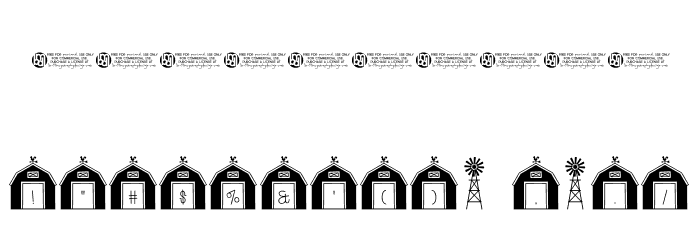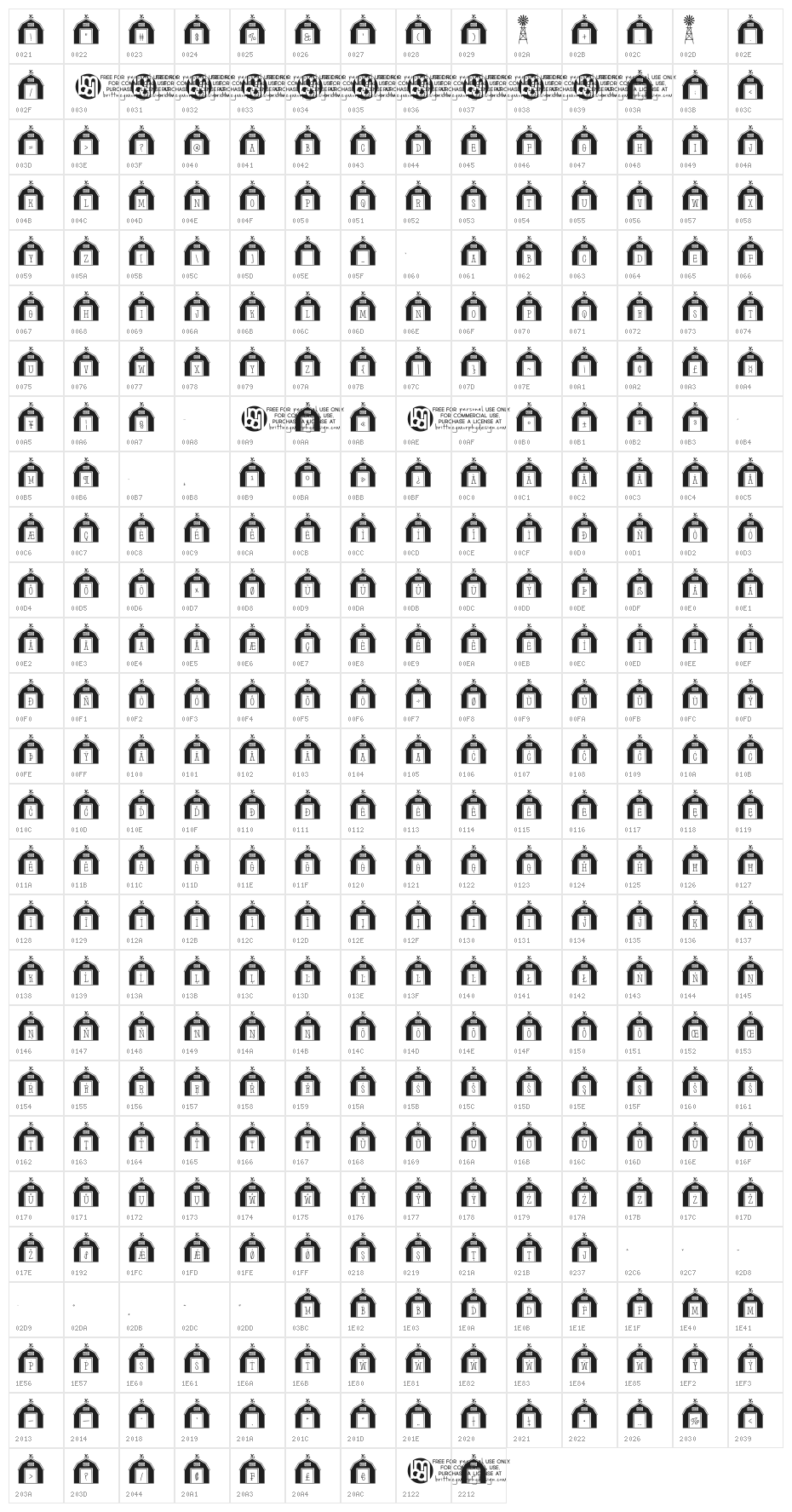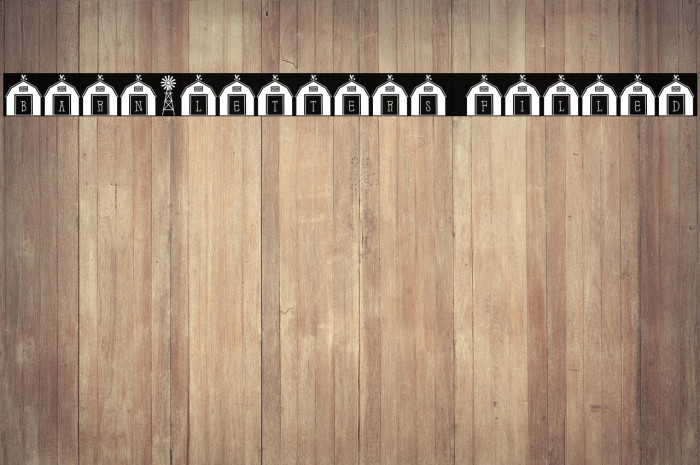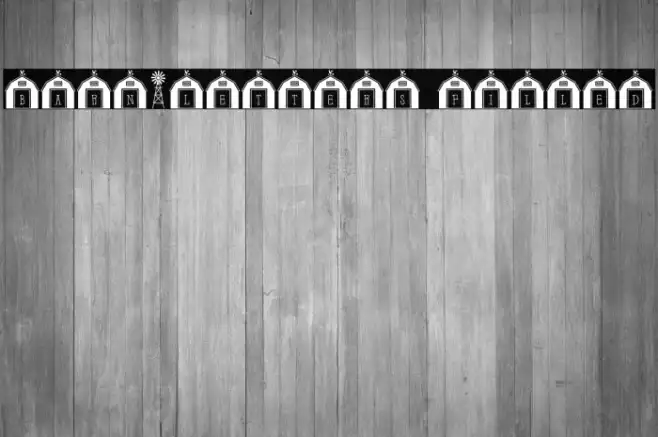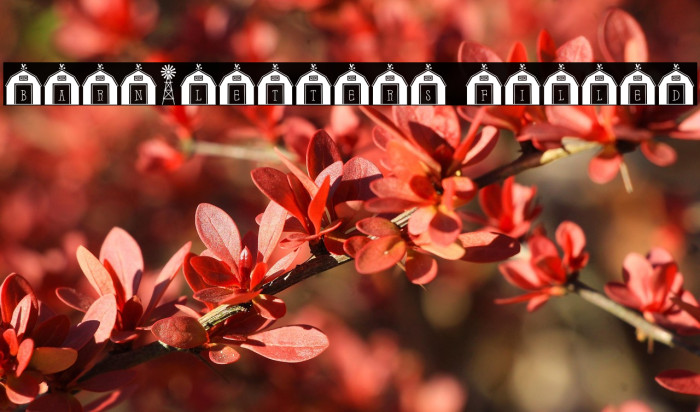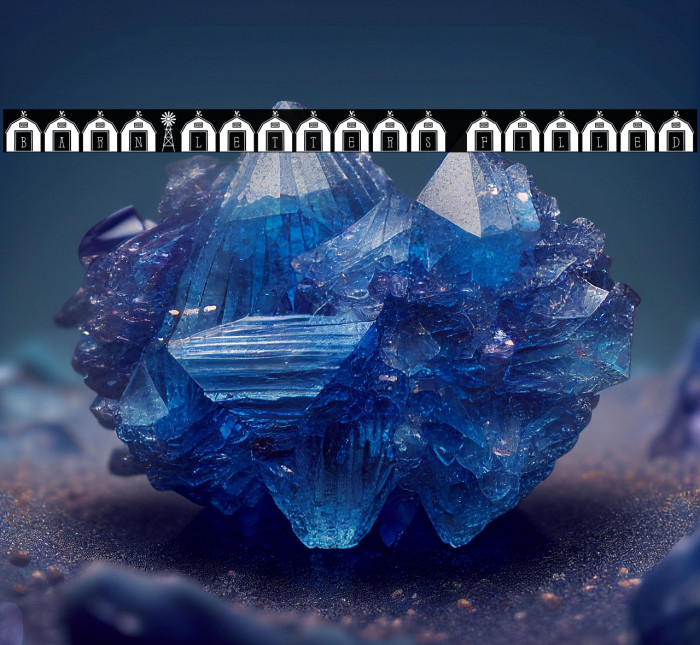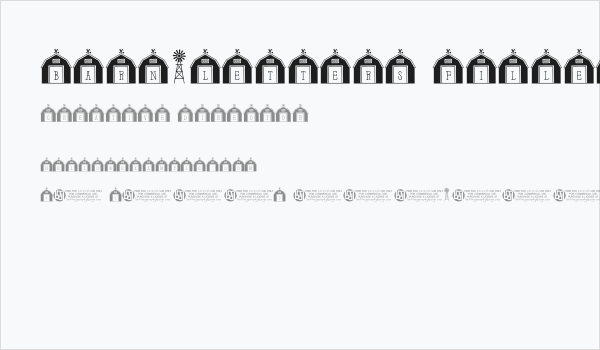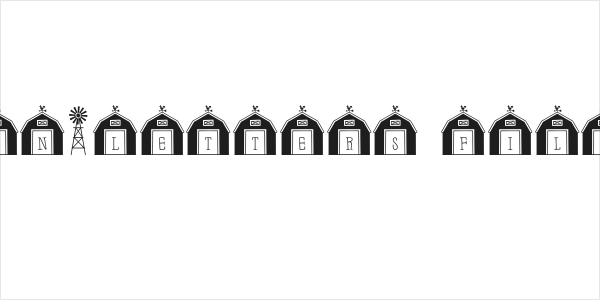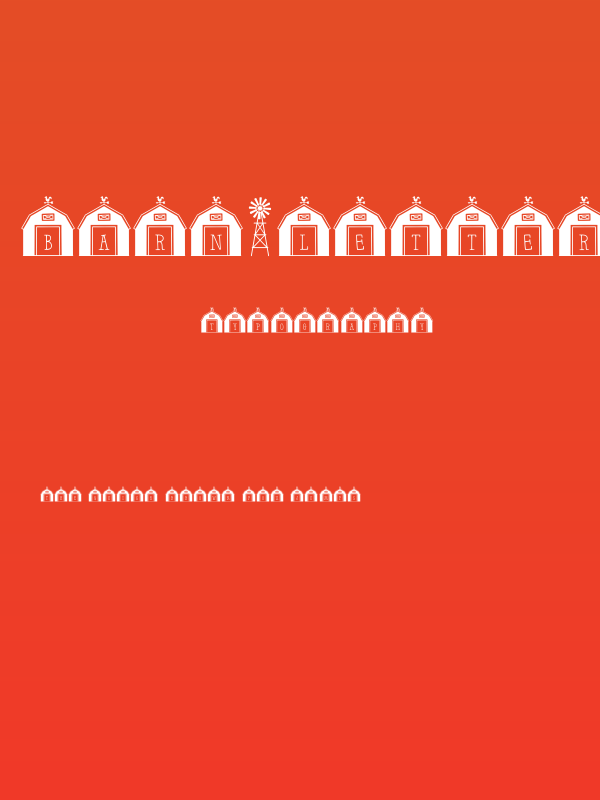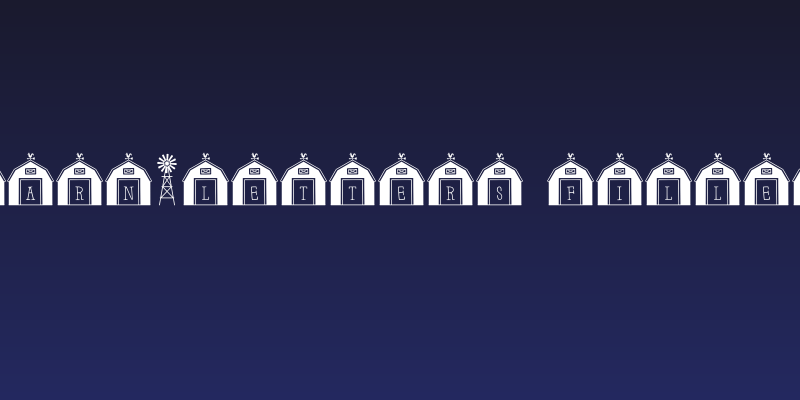
Barn-Letters Filled Font
Barn-Letters Filled Description
This font features a unique and playful design where each character is enclosed within a barn-like structure, complete with a roof and a small window. The letters are bold and uppercase, with a slightly condensed appearance, giving them a strong presence. The design is whimsical and decorative, making it ideal for projects that require a rustic or farm-themed aesthetic. The characters are evenly spaced, ensuring readability while maintaining their distinctive style. The font includes a full set of uppercase letters, numbers, and a selection of special characters, each maintaining the barn motif. The overall style is decorative and thematic, perfect for creative and themed projects.
| Use Case | Headlines, Logos, Themed Events |
| Proposed Projects | Ideal for farm-themed posters, children's books, event invitations, and rustic branding projects. |